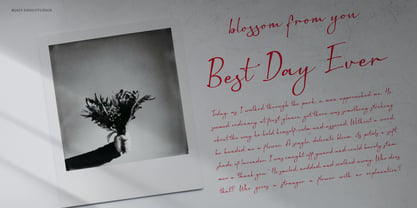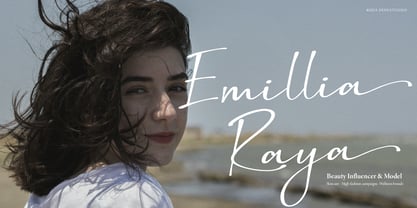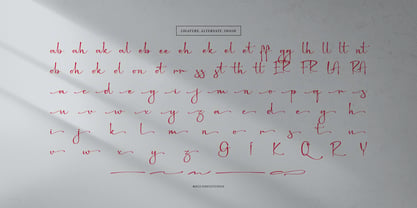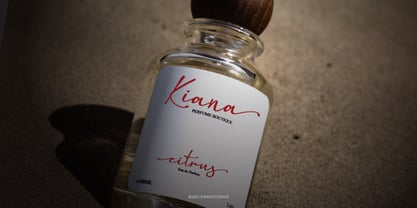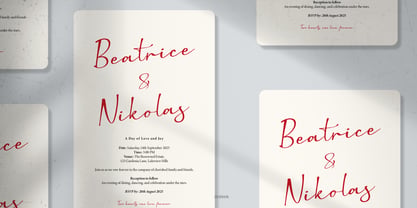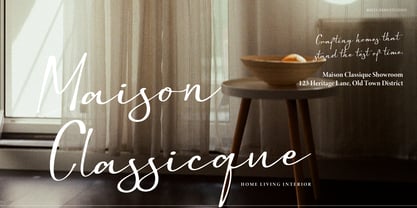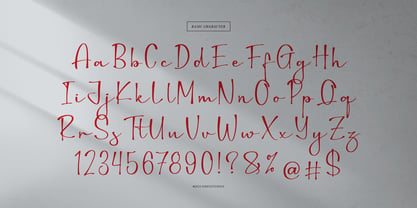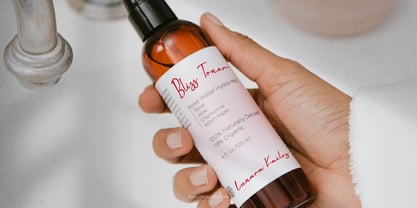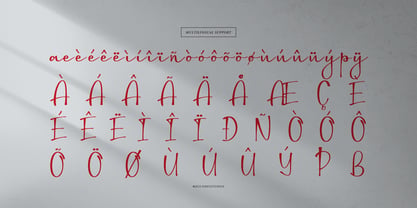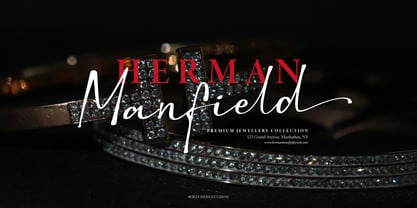
Dirgestan
von Denustudio
Die Schriftfamilie Dirgestan wurde von Dede Nugraha entworfen und von Denustudio veröffentlicht. Dirgestan enthält 2 Stile und Familienpaketoptionen. Mehr über diese Familie
Dirgestan | Handwritten Script, from Denustudios, suitable for any projects such as: logos, branding projects, homeware designs, product packaging, mugs, quotes, posters, shopping bags, t-shirts, book covers, name card, invitation cards, greeting cards, label, photography, watermark, special events, and all your other lovely projects that need a Handwritten Script taste.
• Regular and Italic
• Alternate and Ligature